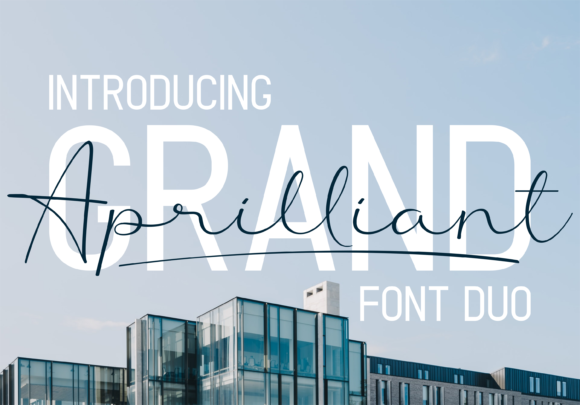
The Perfect Pair: Unlocking the Beauty of the Grand Aprilliant Duo Font
Have you ever been in a creative flow, surrounded by inspiring ideas and visions, only to be halted by the perfect font to bring your project to life? For designers, finding that elusive perfect pairing can be a challenge, but what if we told you that the Grand Aprilliant Duo Font is the answer to all your prayers?
This stunning font duo, comprised of signature script and sans serif styles, is the ultimate game-changer for designers. The Grand Aprilliant Duo Font is designed to be paired together perfectly, making it a versatile choice for a wide range of applications, from weddings and logos to greeting cards and branding. Its beauty lies in its ability to elevate any design, making it a valuable addition to any designer’s toolkit.
Grand Aprilliant Duo Font Key Features
- Font Family: Grand Aprilliant Duo, a unique and elegant script font designed for both personal and commercial use.
- Unique Characteristics: Features elegant, flowing lines, and ornate details, making it perfect for creating beautiful and sophisticated designs, such as wedding invitations, greeting cards, and luxury branding materials.
- Font Pairing: Designed to pair well with sans-serif fonts, such as Open Sans or Lato, to create a harmonious and balanced visual effect.
Grand Aprilliant Duo Font Review
I recently had the chance to work with the Grand Aprilliant Duo Font, and I must say, it’s a lovely addition to any design project. Here’s what I think:
- ✨ The font’s elegance and sophistication make it perfect for high-end branding and luxury designs.
- ✨ The duo font’s versatility allows it to work well in both digital and print applications.
- ✨ The subtle variations in letterforms give the font a unique and interesting feel.
- ⚠️ The font’s complexity can make it difficult to use in small text sizes or for body copy.
- ⚠️ Some letters may be challenging to read at a glance, requiring a closer look to decipher.
- ⚠️ The font’s luxury feel may not be suitable for every brand or design project.
I’d give the Grand Aprilliant Duo Font 4 out of 5 stars. While it’s not perfect, its strengths far outweigh its limitations, making it a great choice for designers looking to add a touch of elegance to their projects.
Use the Grand Aprilliant Duo Font for elegant and sophisticated designs, such as wedding invitations, luxury branding, and high-end marketing materials.
Combine the Grand Aprilliant Duo Font with other elegant fonts for a sophisticated and refined design.
Luxury branding and marketing materials
High-end event invitations and promotions
Formal business presentations and reports